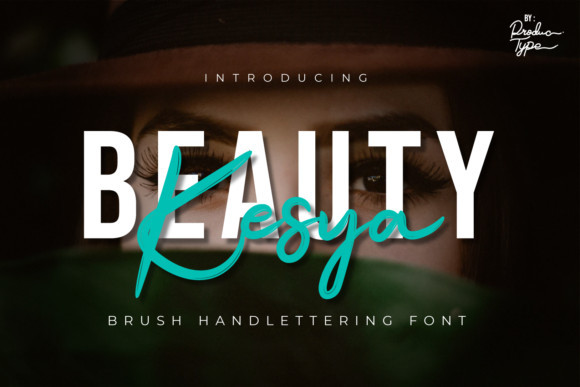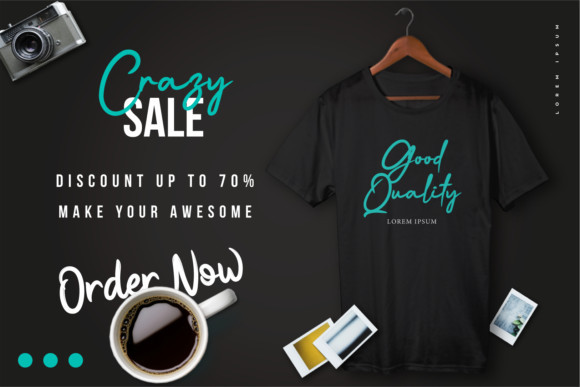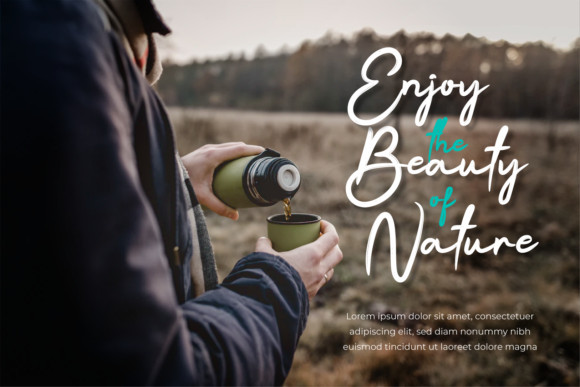
Beauty Kesya Font
Beauty Kesya is a casual and fashionable handwritten font. It looks trendy on a variety of design ideas, so add it confidently and level up your designs.